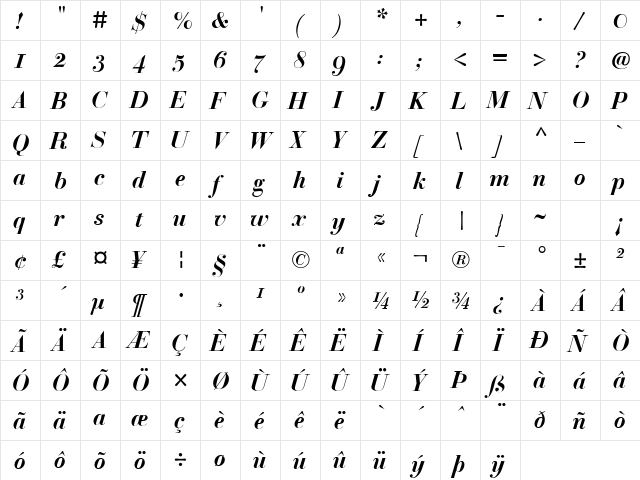
BodoniClassic BoldItalic
Design Context for BodoniClassic Typeface
BodoniClassic wears its vintage influences proudly, with letterforms that recall mid-century signage, classic packaging, and nostalgia-driven design. The slanted form adds forward momentum and visual energy. Its bold stroke weight gives it real presence on the page.
Font Pairing: Combine BodoniClassic with a simple slab or neutral sans — period-accurate companions reinforce the vintage feel without competing for attention.
Pro Tip: Use BodoniClassic for headlines and pull quotes rather than body copy — its personality is best appreciated in short, focused bursts.